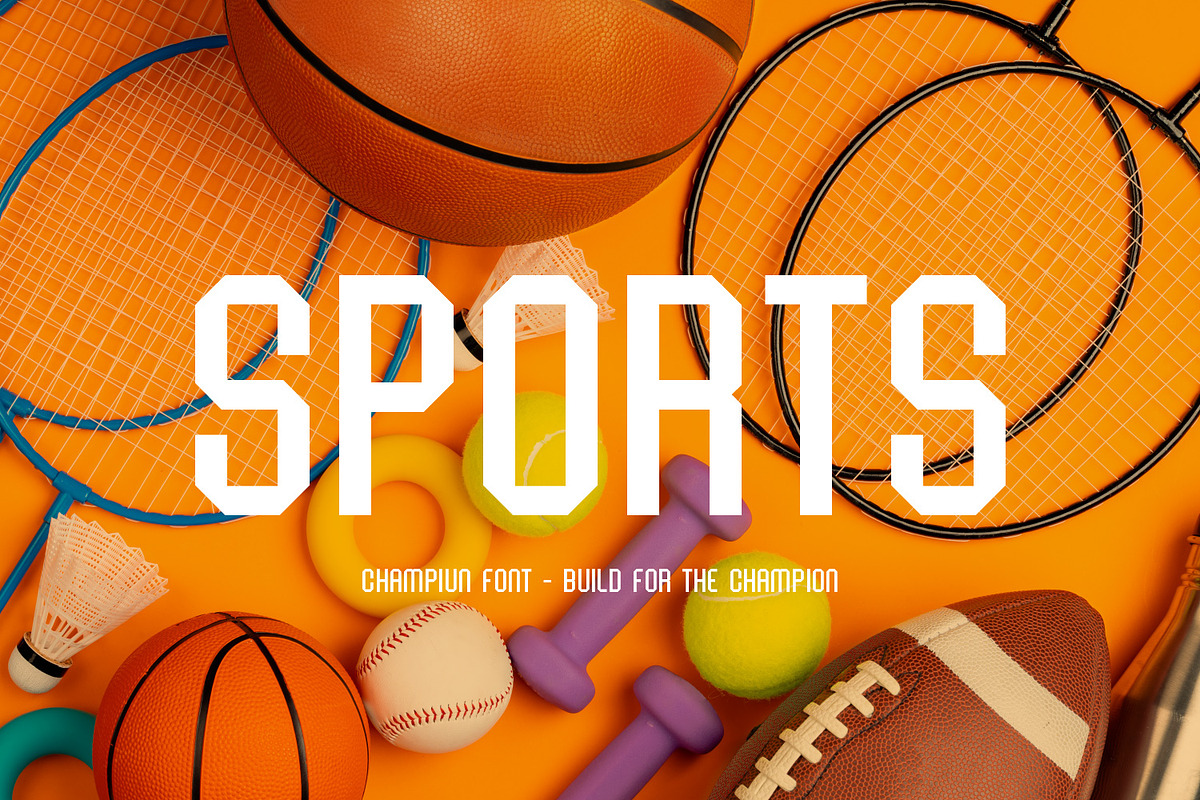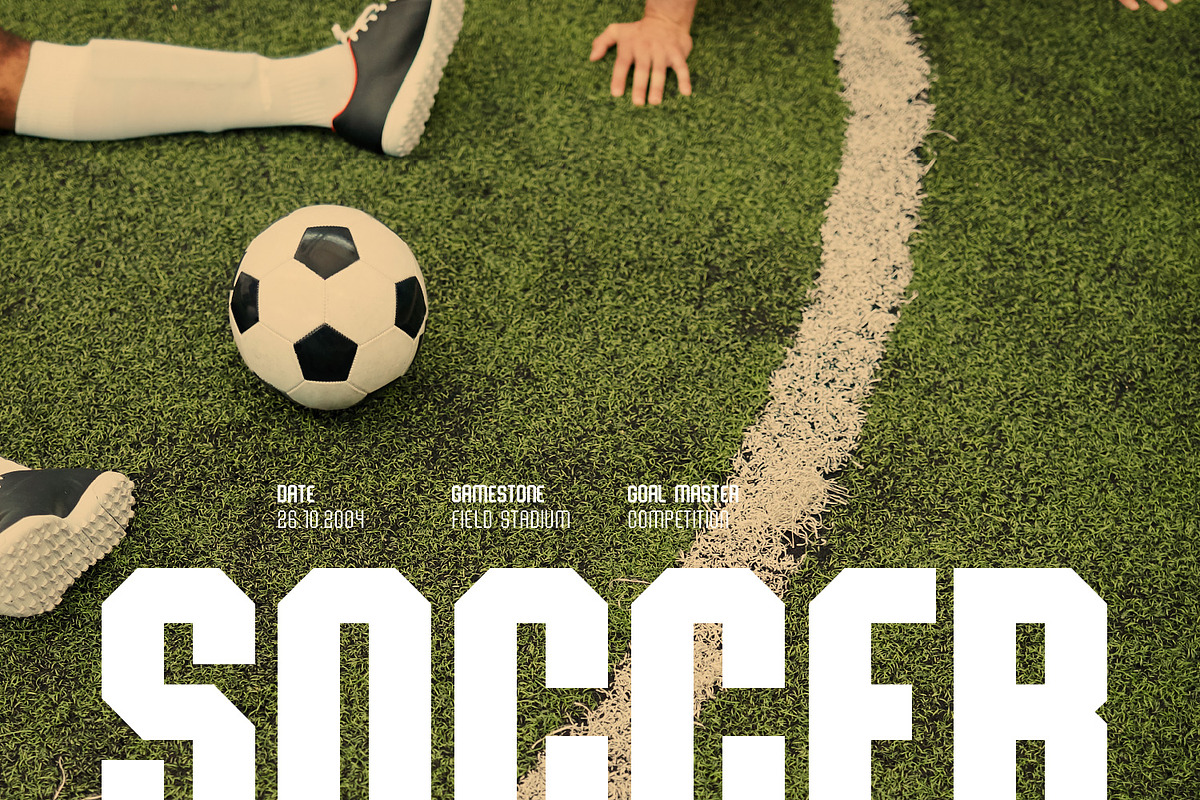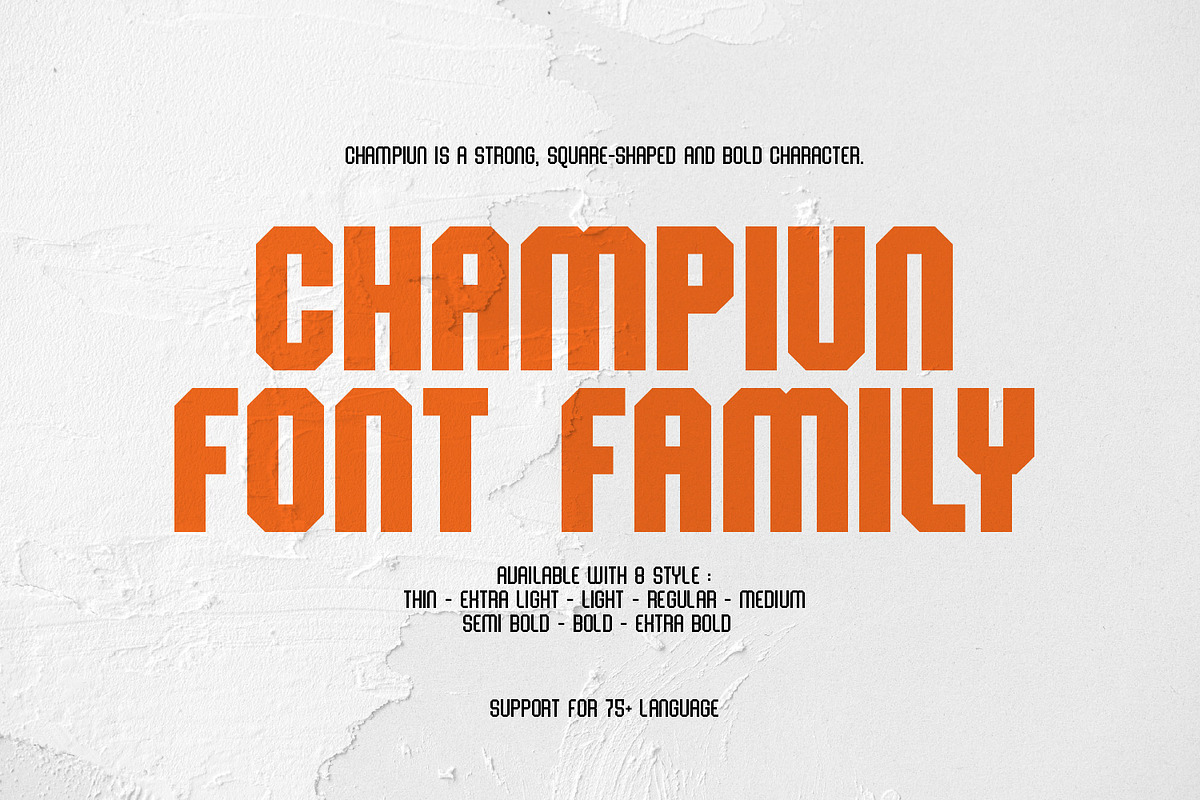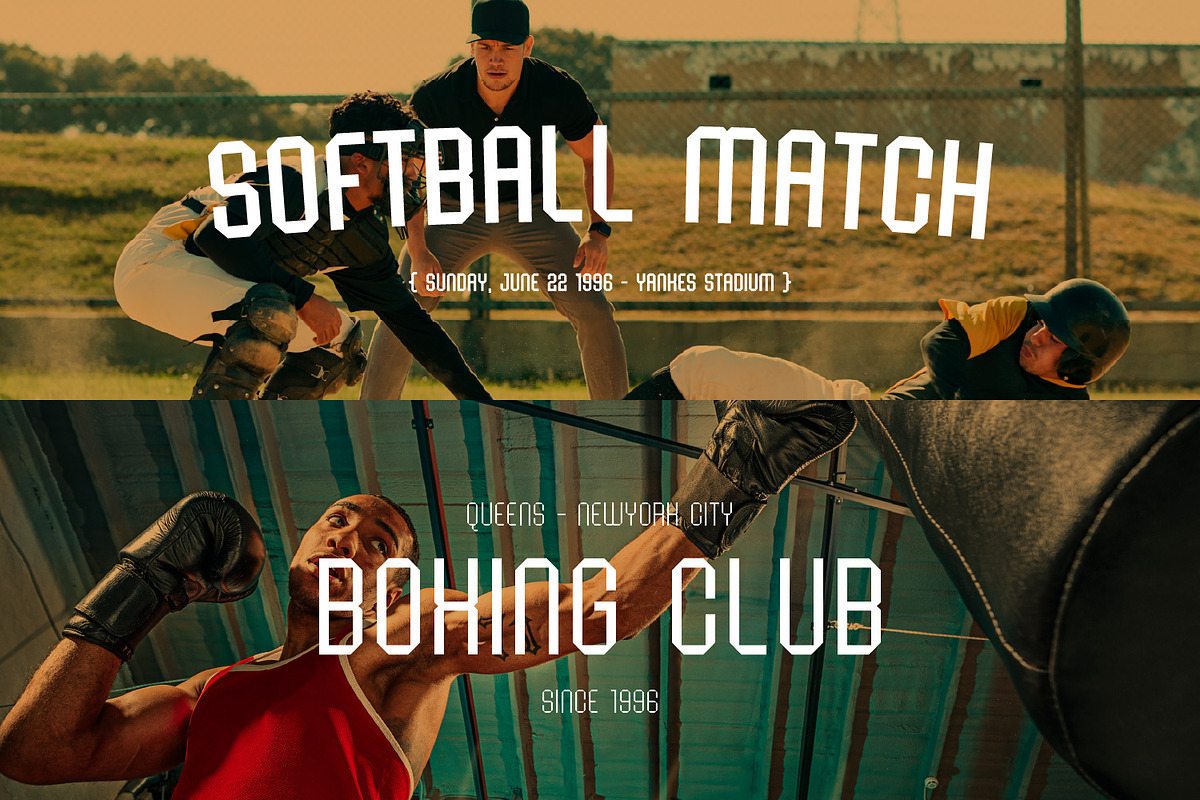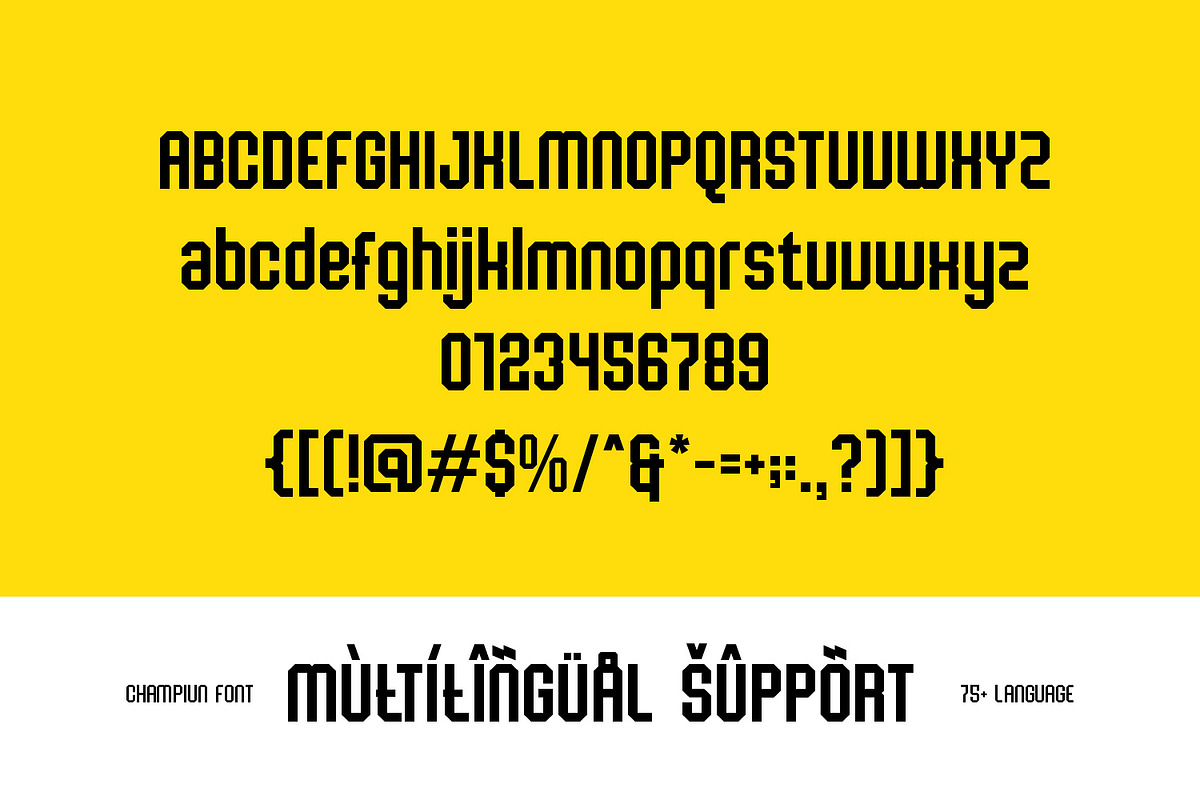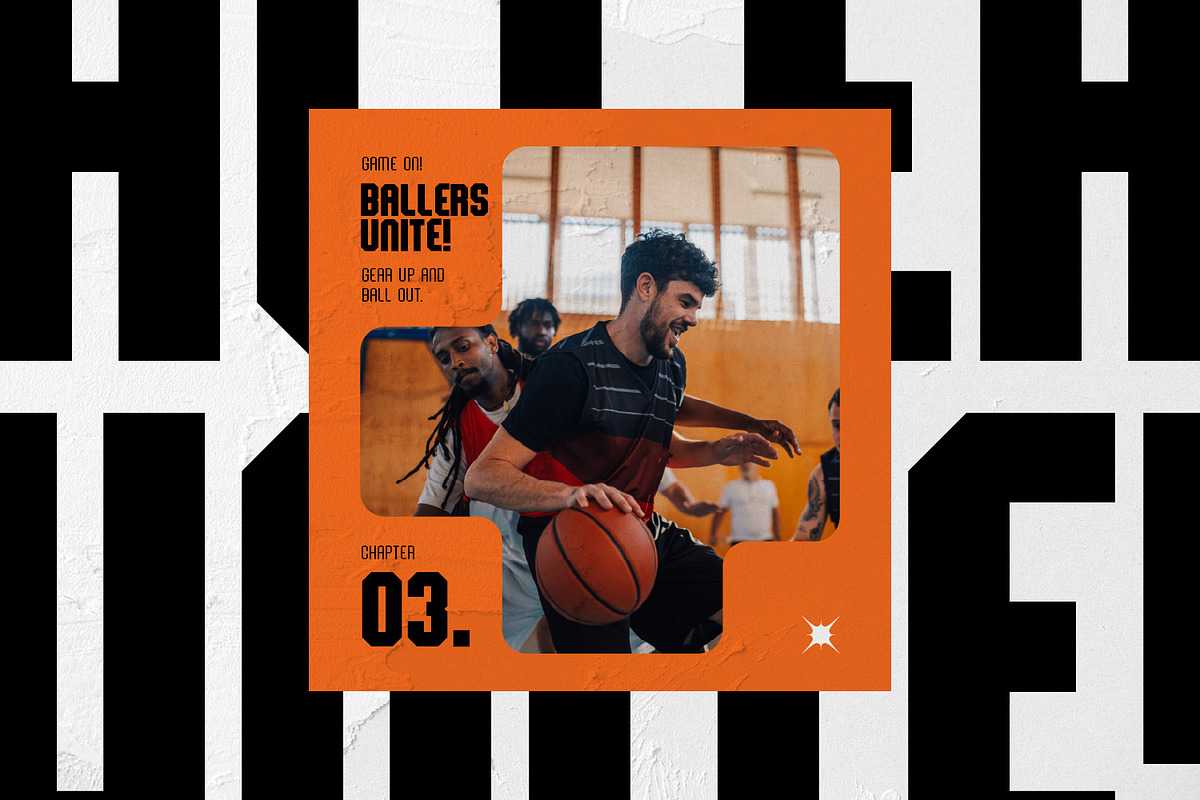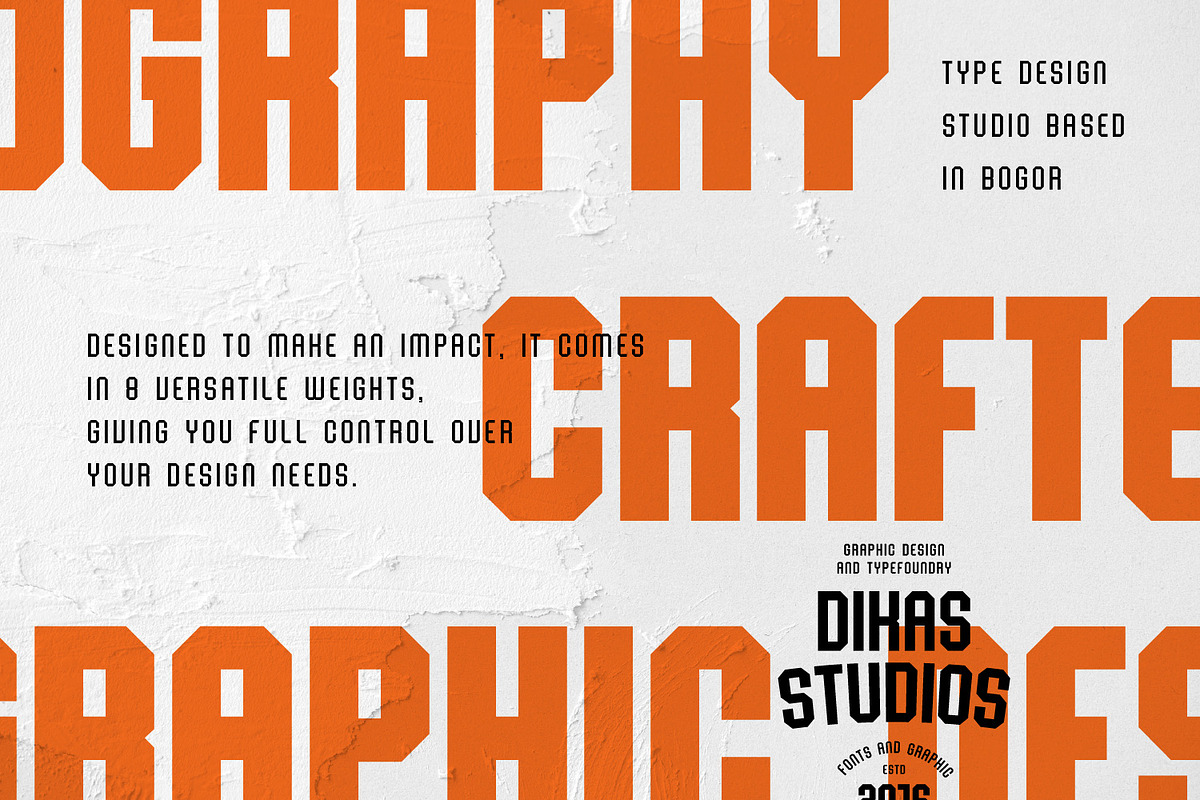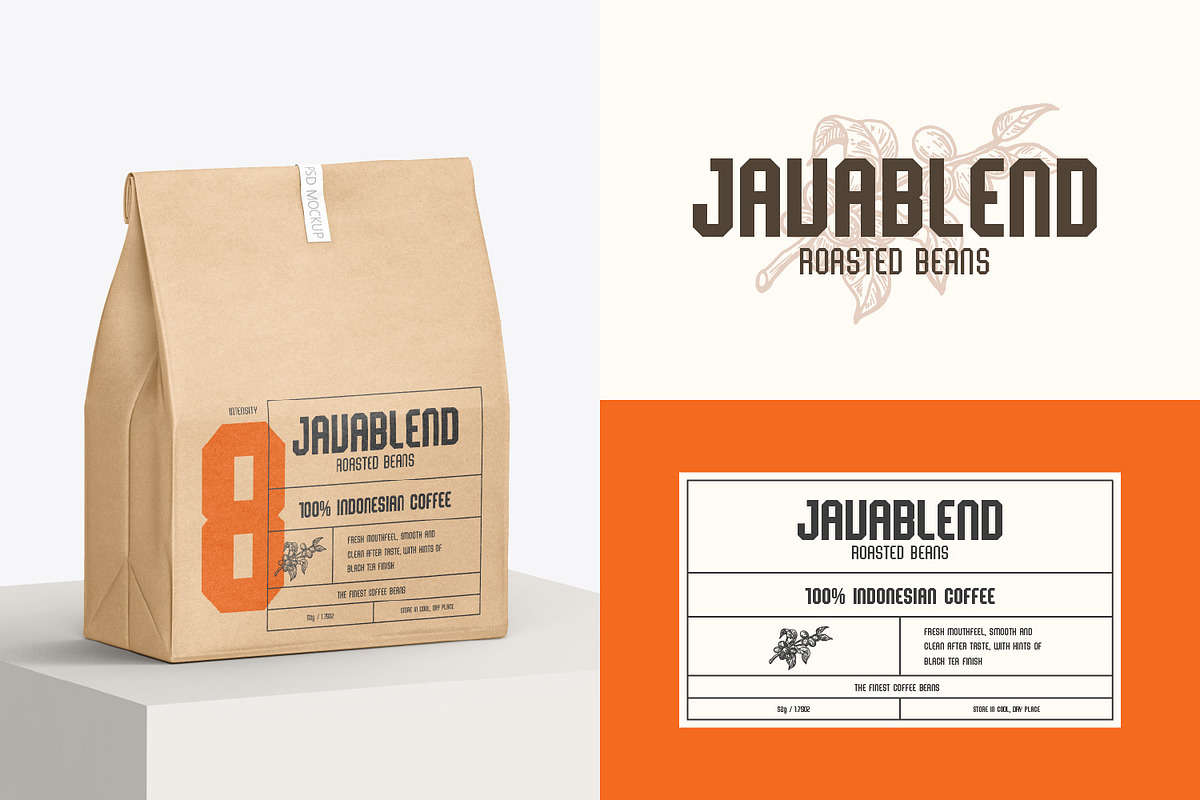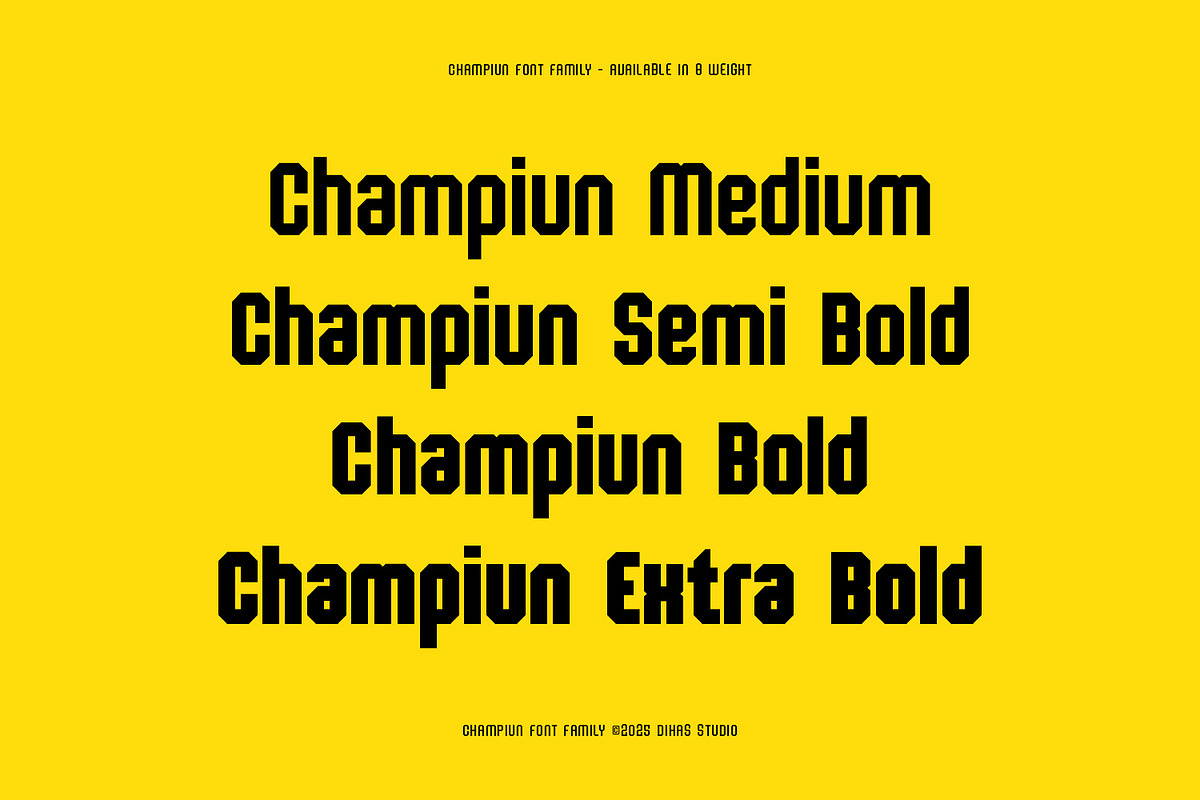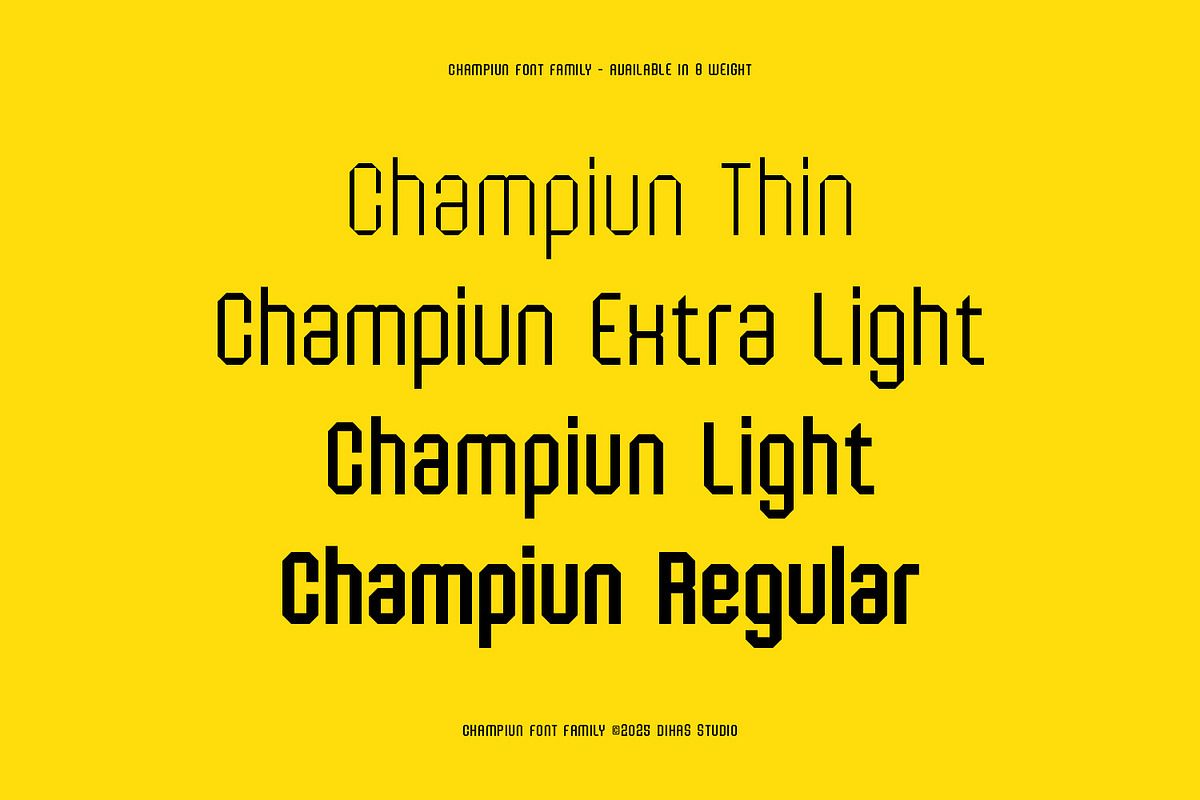
Champiun – Bold and Powerful Sports
Champiun – Bold and Powerful Sports Fonts
Champiun is a strong, square-shaped sans serif font with sharp corners and bold characters. Designed to make an impact, it comes in 8 versatile weights, giving you full control over your design needs. Perfect for sports branding, gym promotions, athletic posters, and anything that demands strength and energy. Champiun brings a tough, confident edge to every project.
Punctuation & Number
Multilingual Language
Multiple Weight